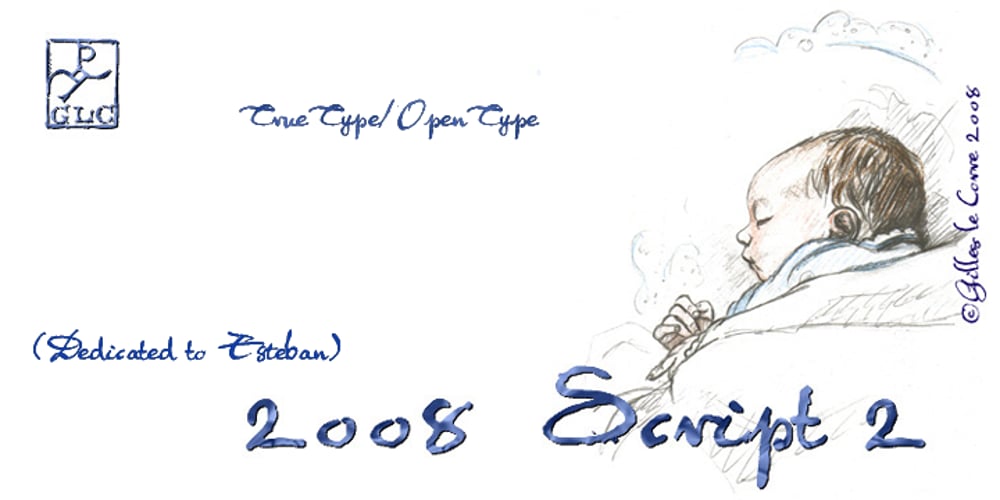
2008 Script 2
2008 Script 2 font
2008 Script 2 Font Family was designed by published by GLC. 2008 Script 2 contains 1 styles and family package options. This font was created for the birth of a baby in June 2008. It’s a melting font, including various types : blackletter script, bastarde, humanistic… a joyful interpretation for a joyful event. It is intended for use as web-site titles, posters and flyers design, but primarily for greeting cards, invitations, party, menus… as a very fancy and joyful font… This font remains clear and easy to read from 8 or 9 points to 72 and much more…